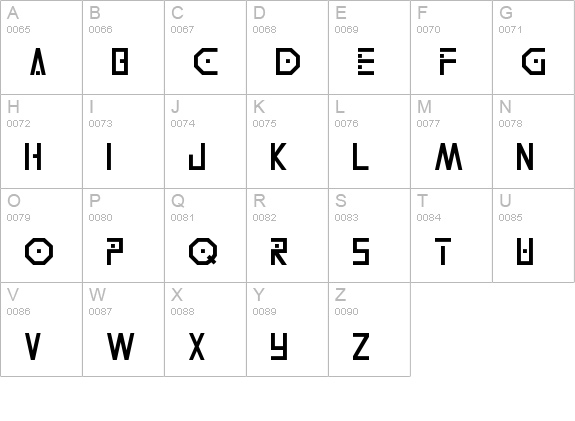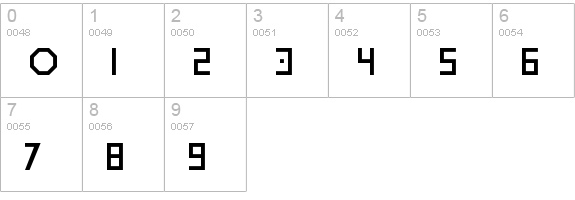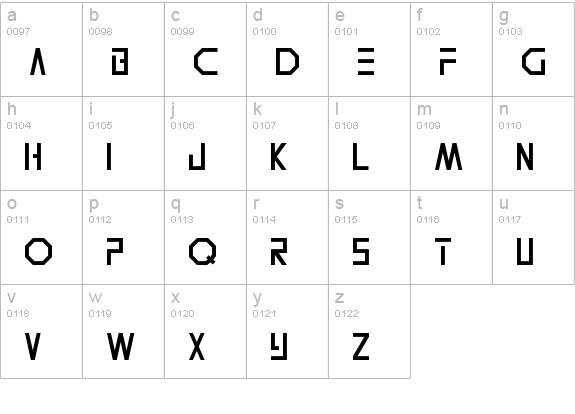
Neon Adventure Font Details
Neon Adventure is a free for personal use font in the Modern > Sci-Fi category, designed by Darrell Flood. It has been downloaded 471 times and is available for Windows, Mac and Linux.
Neon Adventure font is a vibrant and eye-catching typeface that brings a futuristic and electrifying vibe to any design project. With its sleek lines and glowing neon effect, this font is perfect for creating attention-grabbing headings, posters, and logos. Whether you're working on a retro-inspired project or a modern design, Neon Adventure font will add a touch of excitement and energy.